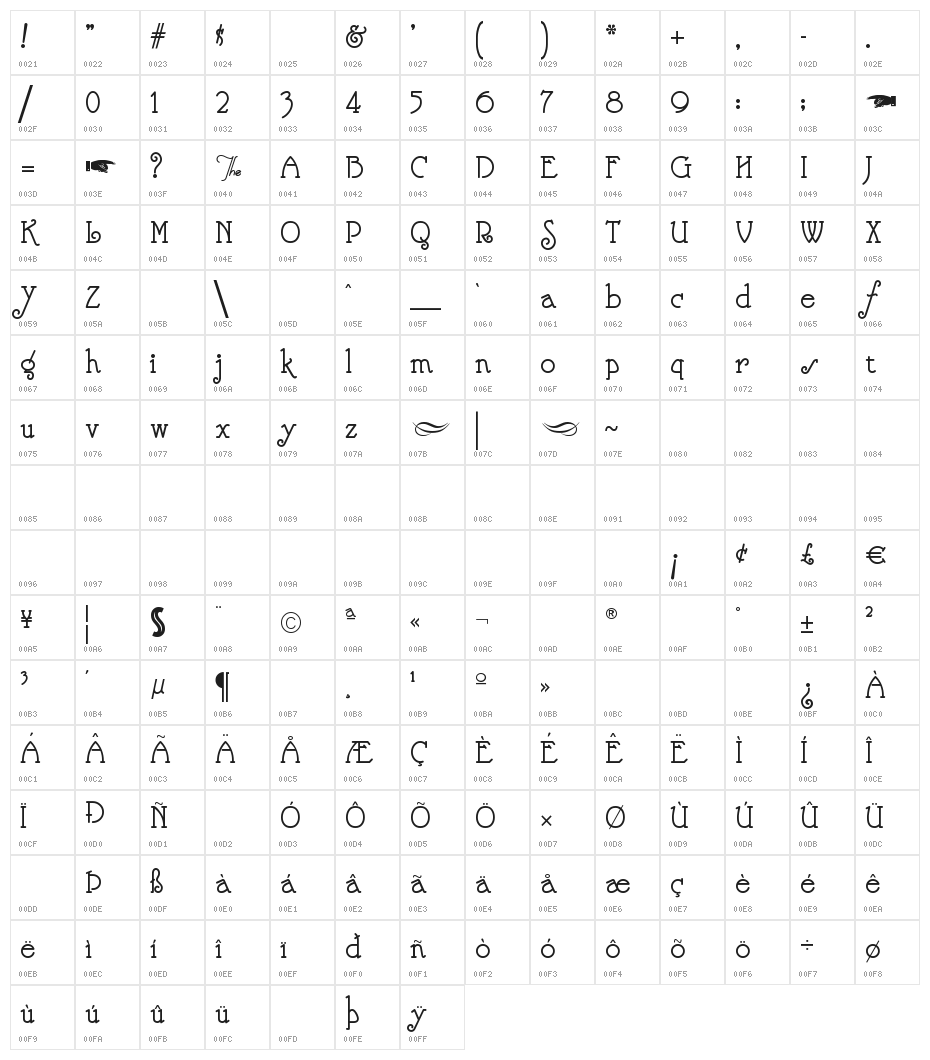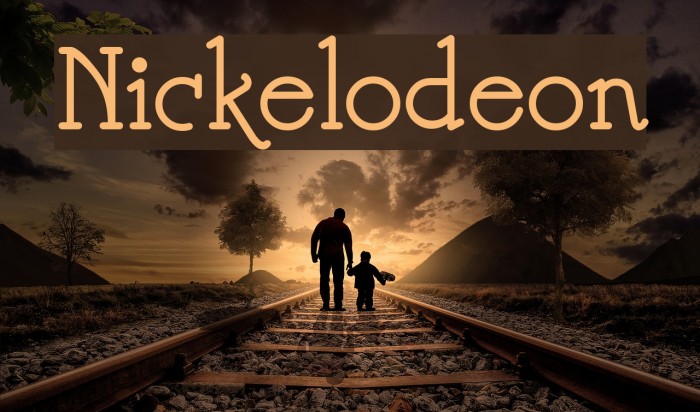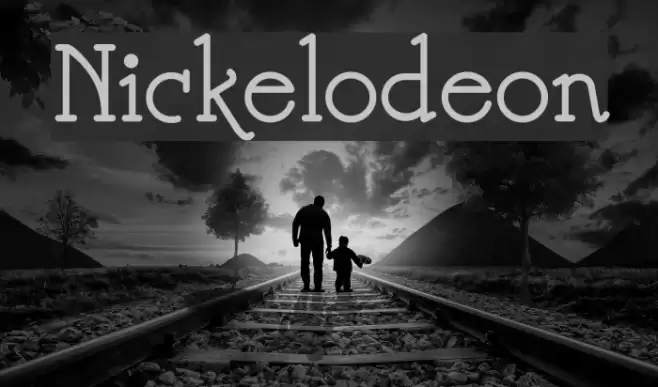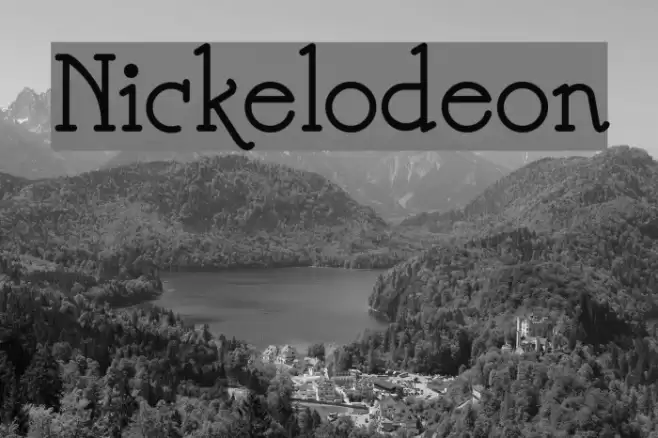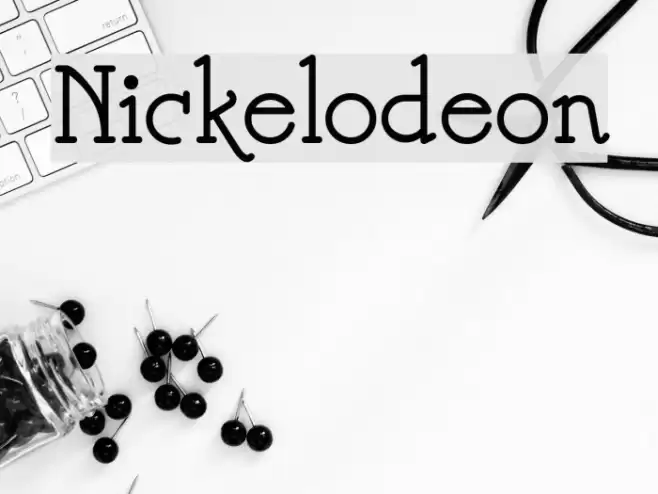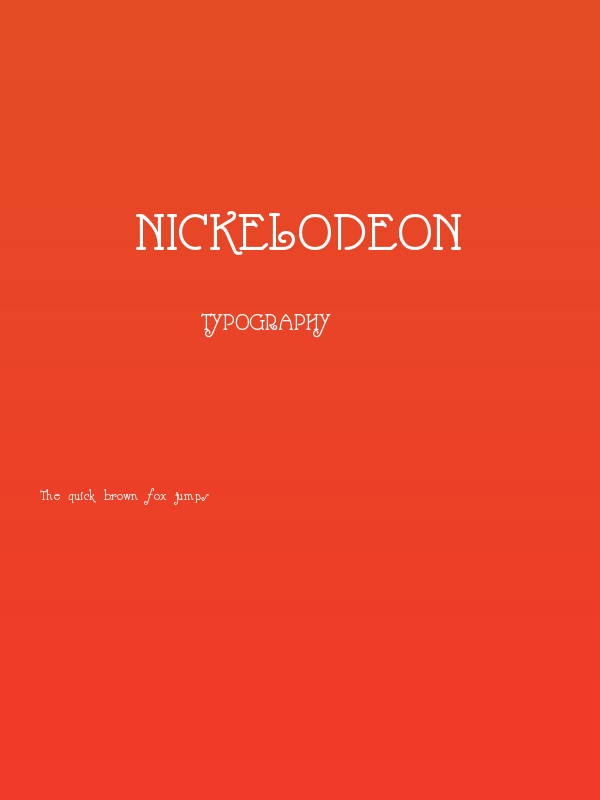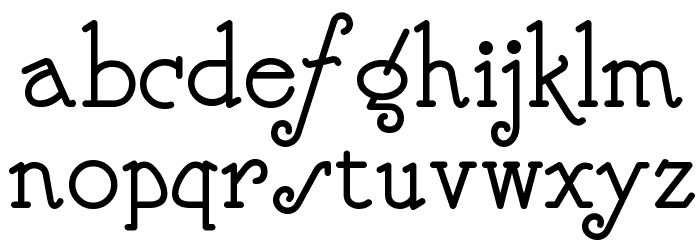
Nickelodeon Font
Nickelodeon Description
This font features a playful and whimsical design with a unique twist on traditional letterforms. The uppercase characters are bold and slightly rounded, with some letters incorporating decorative swirls and curls, adding a touch of elegance and fun. The lowercase letters maintain a similar style, with distinctive loops and curves that enhance the font's quirky personality. Numbers are clear and easy to read, while special characters are creatively styled to match the overall theme. This font is perfect for projects that require a lighthearted and imaginative touch.
| Overall Style | Whimsical |
| Proposed Projects | Ideal for children's books, playful branding, creative invitations, and whimsical posters. |